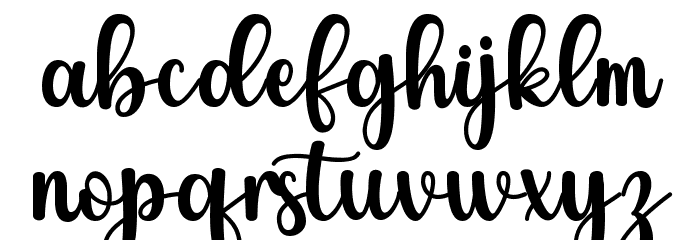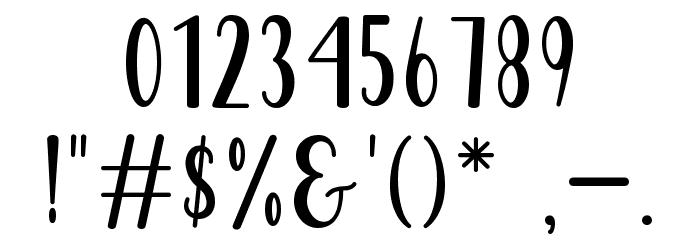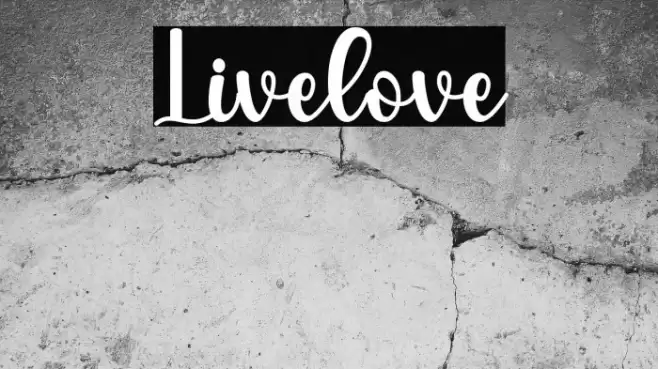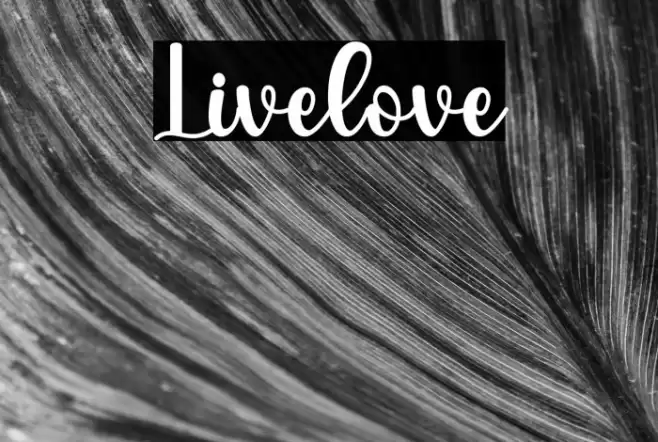
Livelove Font
This font features a playful and elegant script style with a handwritten appearance. The letters are connected, creating a fluid and continuous flow, which adds a personal touch to the text. The uppercase letters are slightly taller and more prominent, while the lowercase letters maintain a consistent baseline, enhancing readability. The numerals are distinct and clear, matching the overall style of the alphabet. Special characters are well-integrated, maintaining the font's cohesive look. This font is ideal for projects that require a personal and friendly tone, such as invitations, greeting cards, and branding materials.
A playful and elegant script font with a handwritten style.
- Proposed Projects: Ideal for invitations, greeting cards, branding, and personal projects.
- Use Case: Logos, Headlines, Invitations